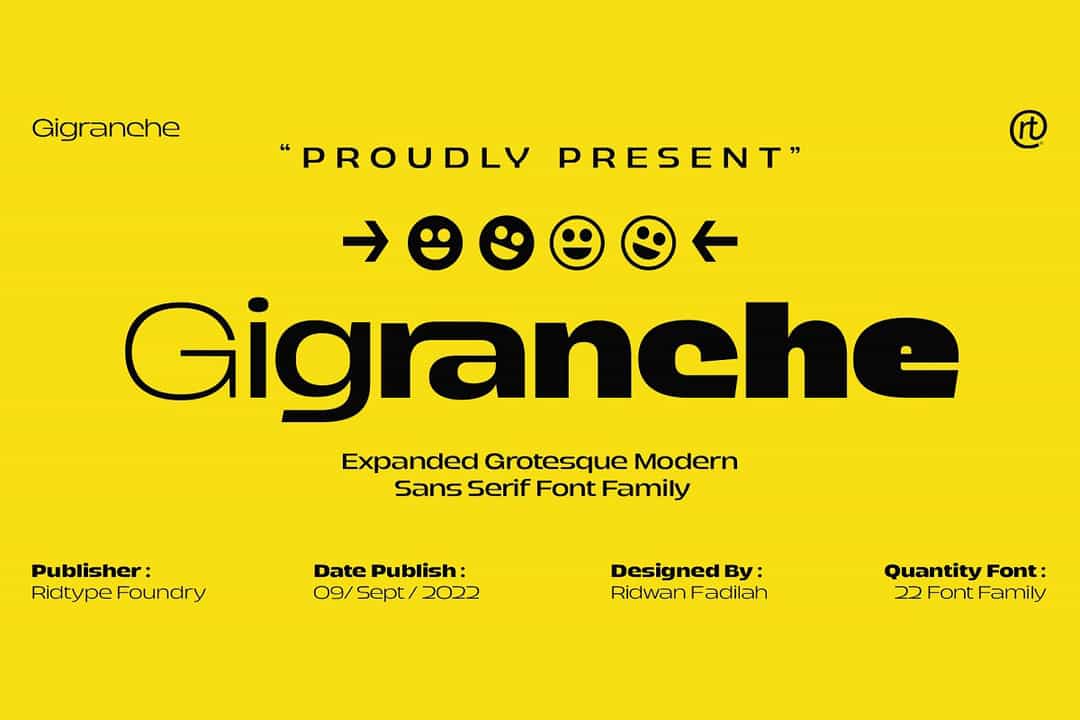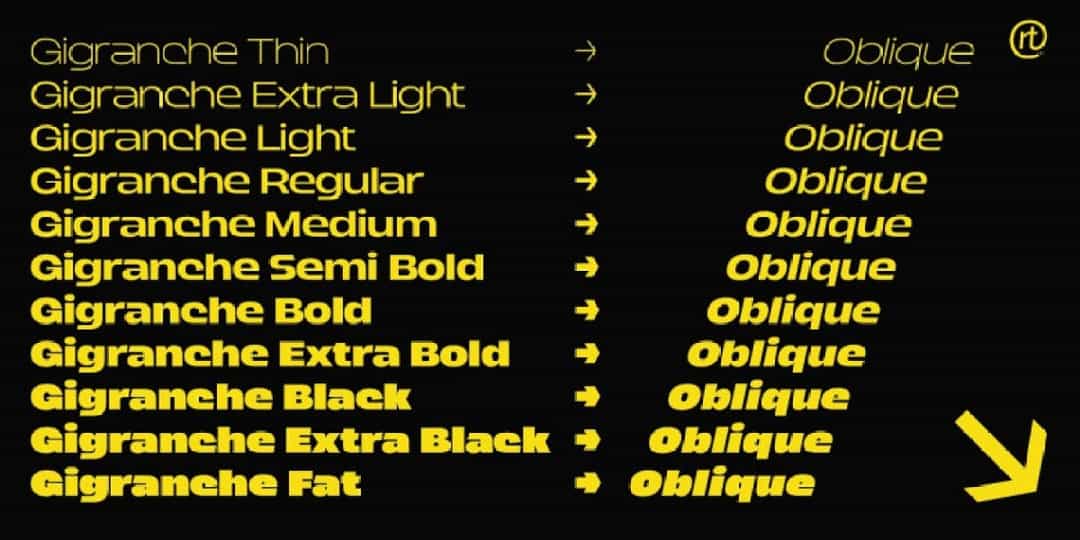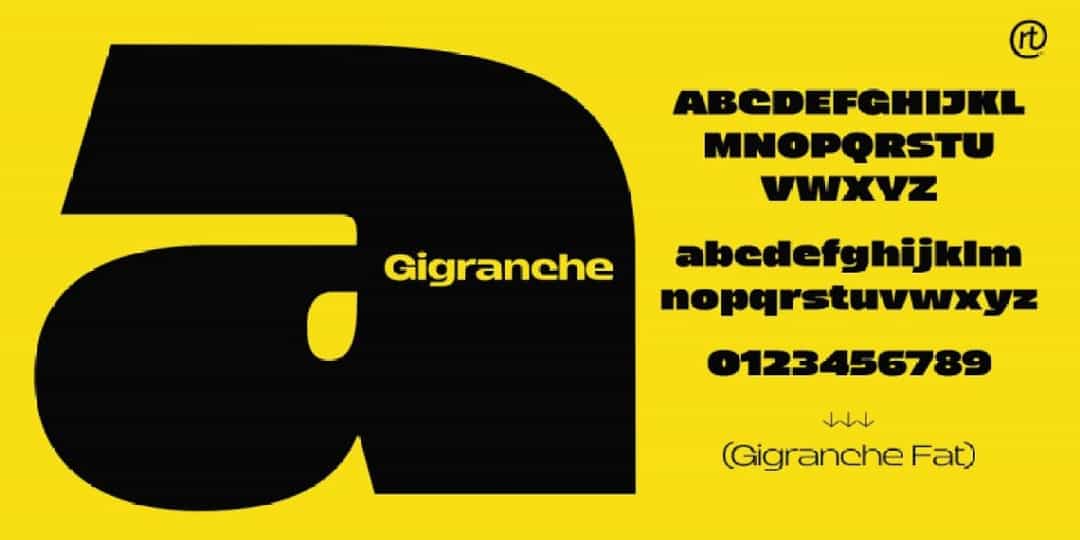
Gigranche Font Family are Expanded Grotesque Modern Sans Serif and that makes the font exceptionally strong and bold for digital manufacturing and printing. Inspiration for this font comes from streetwear ( Urbanstreet) culture which relies heavily on art, courage and power.